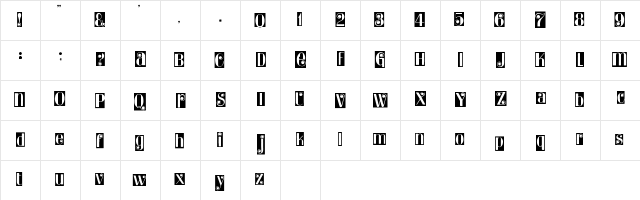
2Peas Cindy 2Peas Cindy Font Preview
2Peas Cindy 2Peas Cindy
Design Context for 2Peas Cindy Typeface
2Peas Cindy is a composed and adaptable typeface that performs quietly and consistently across a wide range of design contexts.